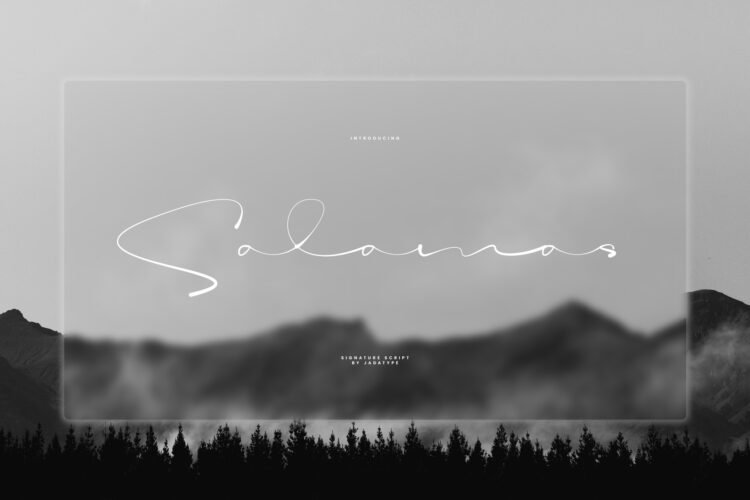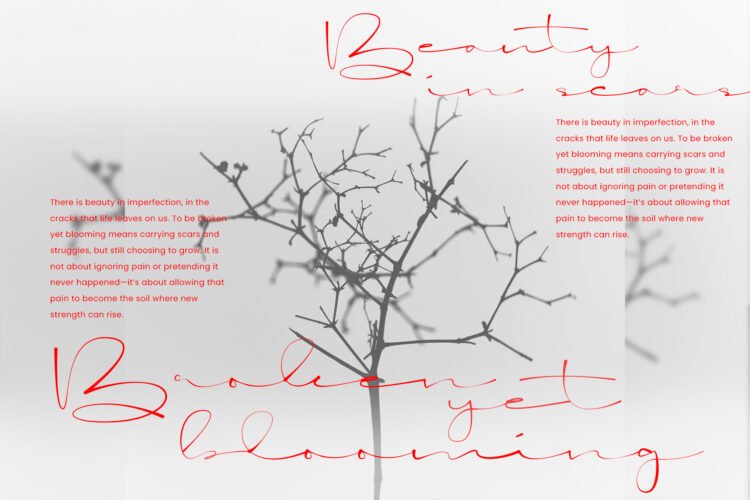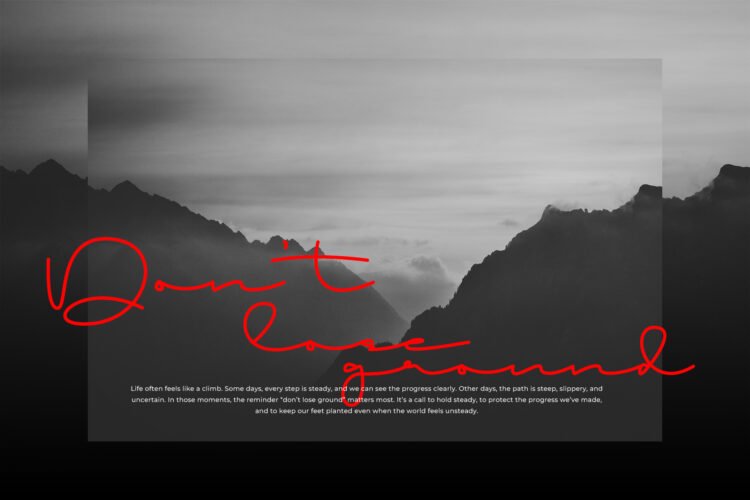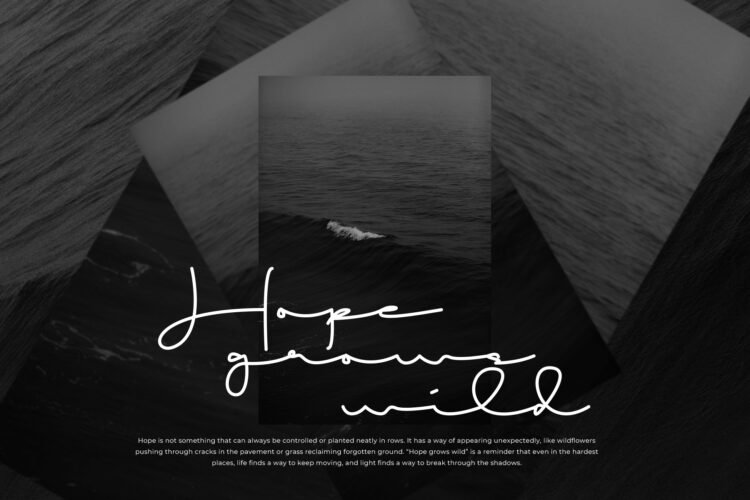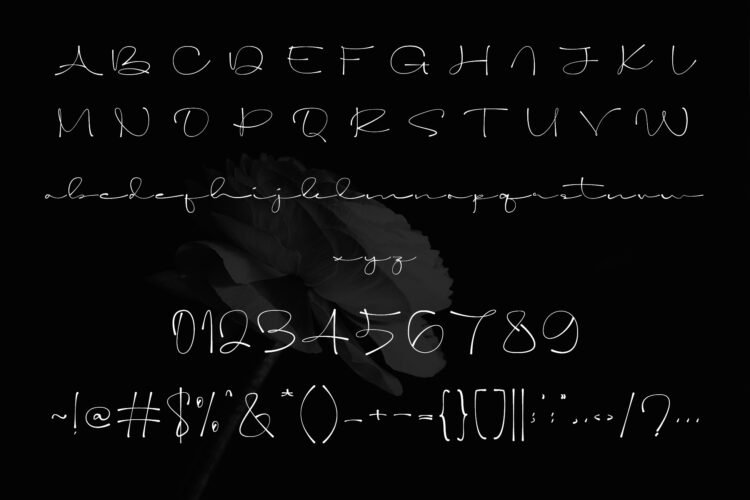
Salamas is handwritten font that comes with a smooth signature style. suitable for business card, logotype, branding, poster, and so on. contains standard English letters, numbers, punctuation, alternates, and several accents that support multilingualism.
• Signature and Monoline
Salamas – Stylish Signature